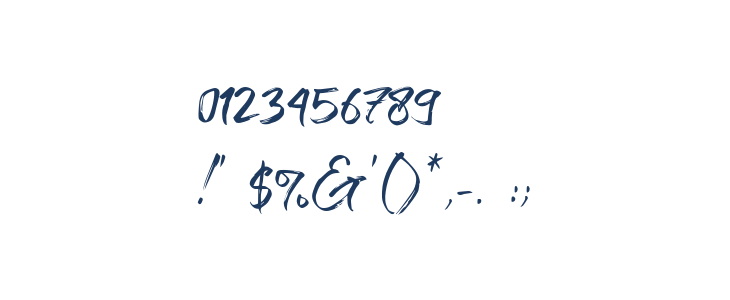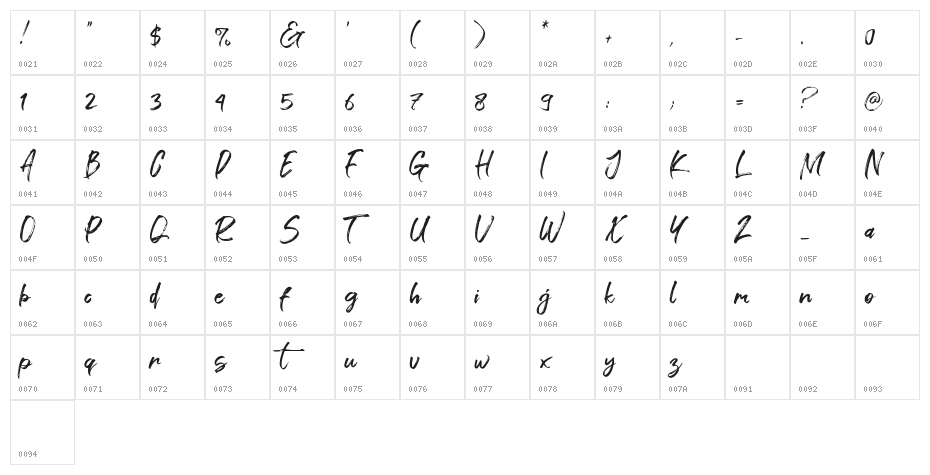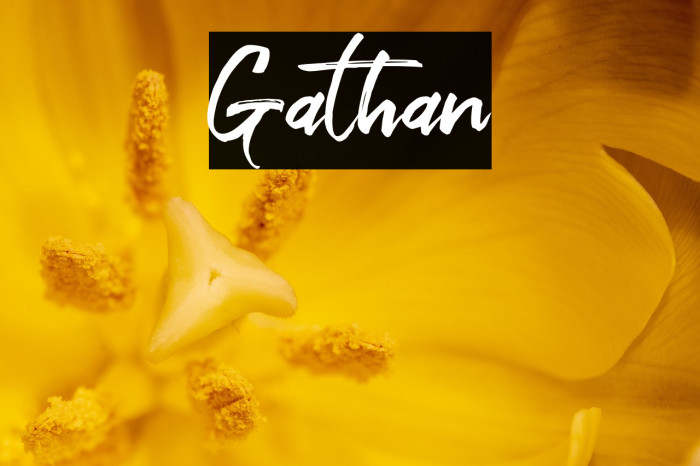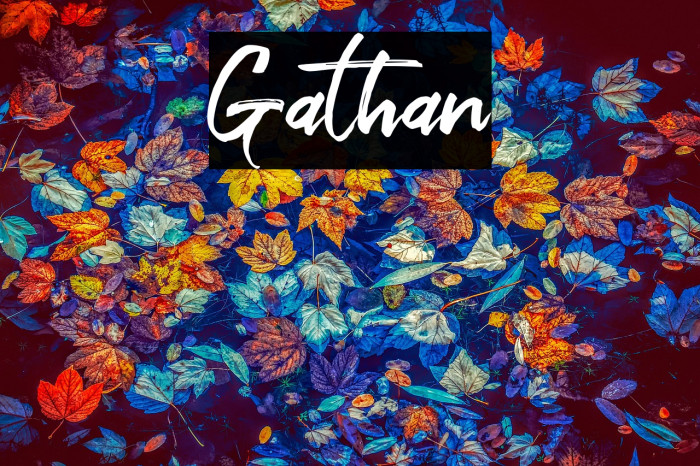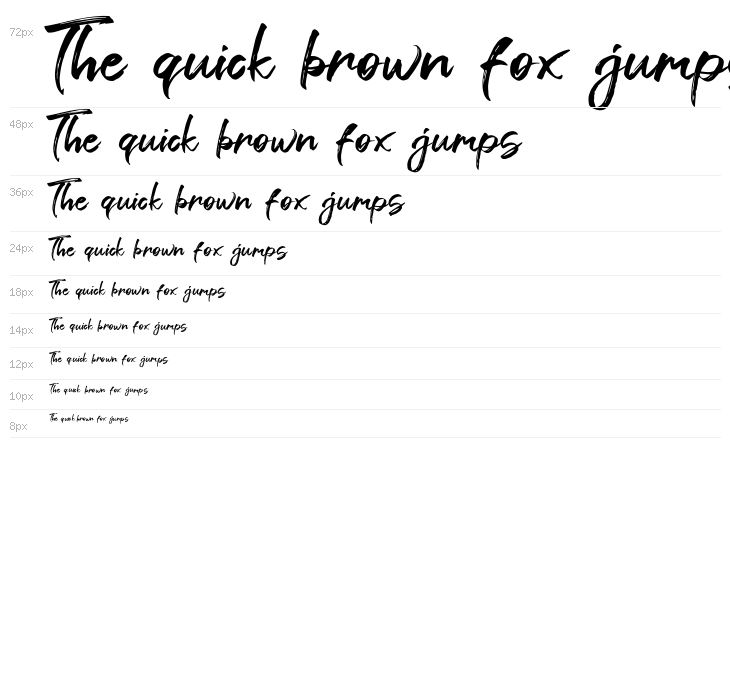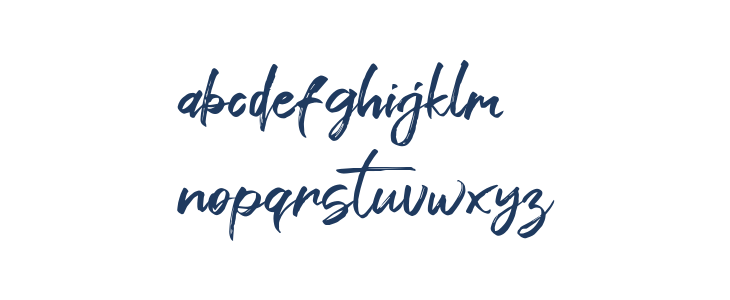
Gathan Font
Gathan Description
This font exudes a dynamic and energetic style, characterized by its bold, brush-like strokes that convey a sense of movement and fluidity. The letters are crafted with a natural, hand-drawn appearance, giving it an artistic and expressive feel. The uppercase letters are slightly more angular, while the lowercase letters maintain a consistent flow, enhancing readability. The numbers and special characters follow the same lively style, making them stand out. This font is perfect for projects that require a personal touch or a creative flair.